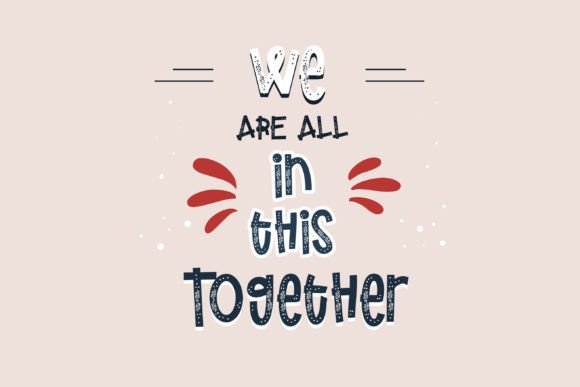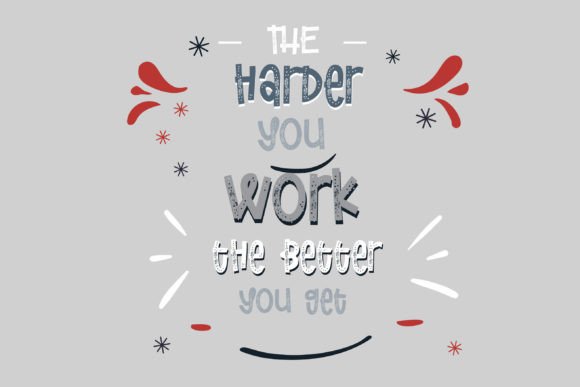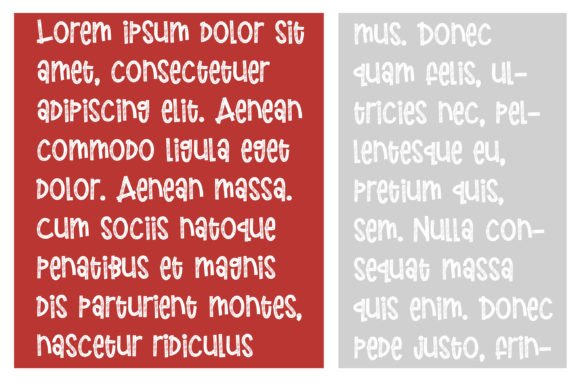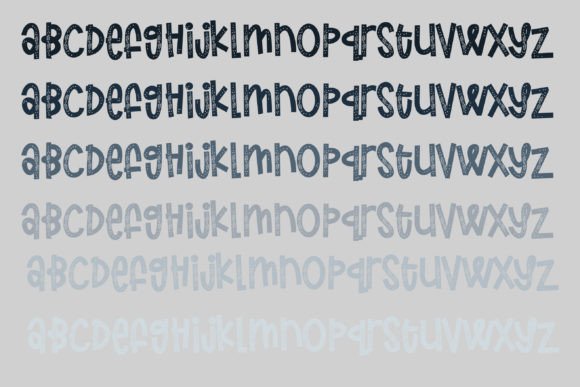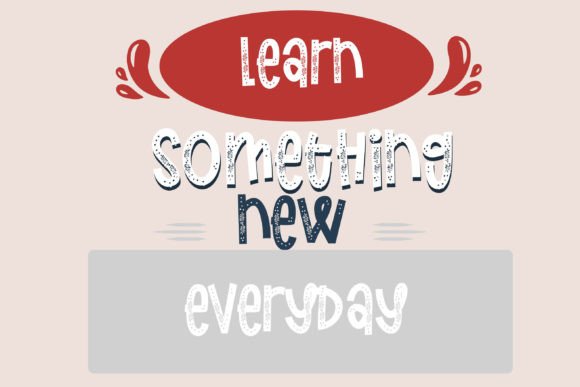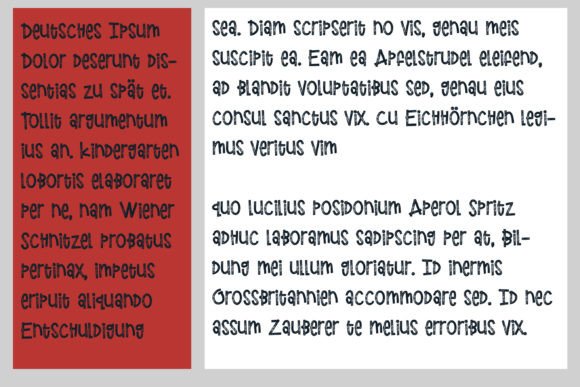
Introducing Bootlegger Berry Font: A Hand-Crafted Sans Serif Delight
Are you tired of using the same old fonts in your designs? Look no further than the Bootlegger Berry Font, a hand-crafted sans serif font that features holly and berries. This unique font is perfect for designers and crafters who want to add a touch of personality to their work.
A hand-crafted font is a font that is designed to look like it was written by hand. It is often used for invitations, greeting cards, and other items where a personal touch is desired. Handwritten fonts can be either formal or informal, and they can be used for a variety of purposes.
The Benefits of Handwritten Fonts
Handwritten fonts can be a great way to add a casual touch to your designs. They can also be used to create a sense of nostalgia or whimsy. Whether you’re designing a wedding invitation or a craft project, a handwritten font can help you achieve the look and feel you want.
Choosing the Right Handwritten Font
However, it is essential to choose a handwritten font that is appropriate for the project you are working on. A formal handwritten font may not be suitable for a casual invitation, while an informal handwritten font may not be suitable for a corporate document. With so many handwritten fonts to choose from, it can be overwhelming to select the right one.
Introducing Bootlegger Berry Font
The Bootlegger Berry Font is a hand-crafted sans serif font that features holly and berries. This unique font is perfect for designers and crafters who want to add a touch of personality to their work. The font is designed to look like it was written by hand, with a playful and whimsical feel.
Key Features of Bootlegger Berry Font
- Hand-crafted sans serif font
- Features holly and berries
- Playful and whimsical feel
- Perfect for invitations, greeting cards, and craft projects
- Can be used for formal or informal designs
Using Bootlegger Berry Font in Your Designs
The Bootlegger Berry Font is versatile and can be used in a variety of designs. Here are a few ideas to get you started:
- Holiday cards and decorations
- Craft projects, such as scrapbooking and DIY gifts
- Signs and banners
Tips for Using Handwritten Fonts
Here are a few tips for using handwritten fonts in your designs:
- Use a handwritten font to add a personal touch to your designs
- Experiment with different font sizes and styles to create visual interest
- Pair a handwritten font with a serif font for a classic look
- Use a handwritten font to create a sense of nostalgia or whimsy
The Bootlegger Berry Font is a unique and versatile hand-crafted sans serif font that features holly and berries. With its playful and whimsical feel, it’s perfect for designers and crafters who want to add a touch of personality to their work. Whether you’re designing a wedding invitation or a craft project, this font is sure to impress.